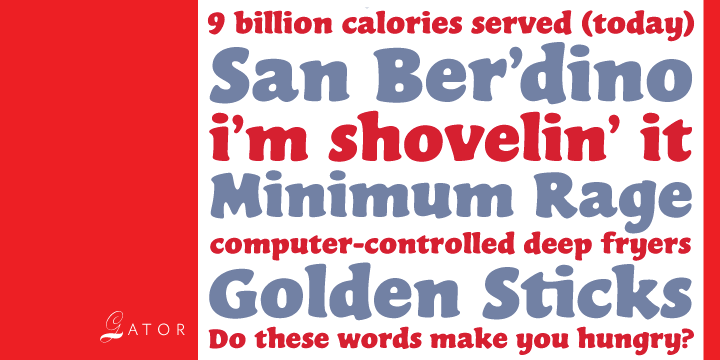
Gator
Gator is a comic and retro font published by Canada Type.
Cooper Black
Cooper Black’s second coming to American design in the mid-sixties, after almost four decades of slumber, can arguably be credited with (or, depending on design ideology, blamed for) the domino effect that triggered the whole art nouveau pop poster jam of the 1960s and 1970s. By the early 1970s, though Cooper Black still held its popular status (and, for better or for worse, still does), countless so-called hippie and funk faces were competing for packaging and paper space. The American evolution of the genre would trip deeper into psychedelia, drawing on a rich history of flared, flourished and rounded design until it all dwindled and came to a halt a few years into the 1980s. But the European (particularly German) response to that whole display type trend remained for the most part cool and reserved, drawing more on traditional art nouveau and art deco sources rather than the bottomless jug of new ideas being poured on the other side of the pond. One of the humorous responses to the “hamburgering” of typography was Friedrich Poppl’s Poppl Heavy, done in 1972, when Cooper Black was celebrating its 50th anniversary. It is presented here in a fresh digitization under the name Gator (a tongue-in-cheek reference to Ray Kroc, the father of the fast food chain).
To borrow the title of a classic rock album, Gator is meaty, beaty, big and bouncy. It is one of the finest examples of how expressively animated a thick brush can be, and one of the better substitutes to the much overused Cooper Black.